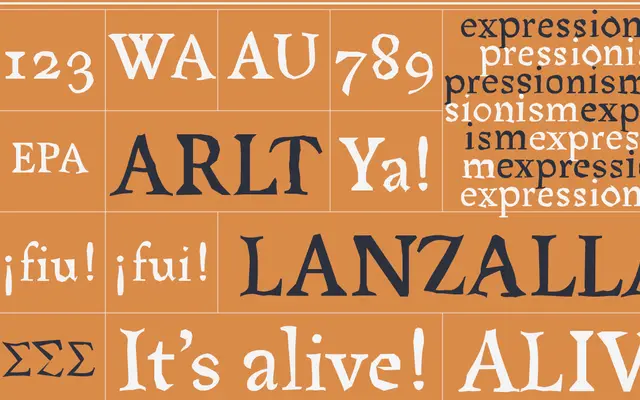
Arlt Lanzallamas
A programmatic display font by Alejandro Lo Celso that cycles through the Arlt 7 Locos cuts as you type, producing shifting permutations with each keystroke.
Part of the Arlt family, Lanzallamas uses OpenType programming to rotate through the seven stylistic variants of Arlt 7 Locos in a sequence determined by the length of the text line. The result is a living, unpredictable display face where no two settings look identical. Recognised as a Typographica Favourite of 2008 and an honourable mention at Creative Review London 2005, it sits firmly at the experimental end of Latin display typography.
Tagged as serif and display by the foundry, with expressionist and experimental characteristics; the font cycles through permutations of the Arlt 7 Locos cuts, making it a dynamic multi-style display face.